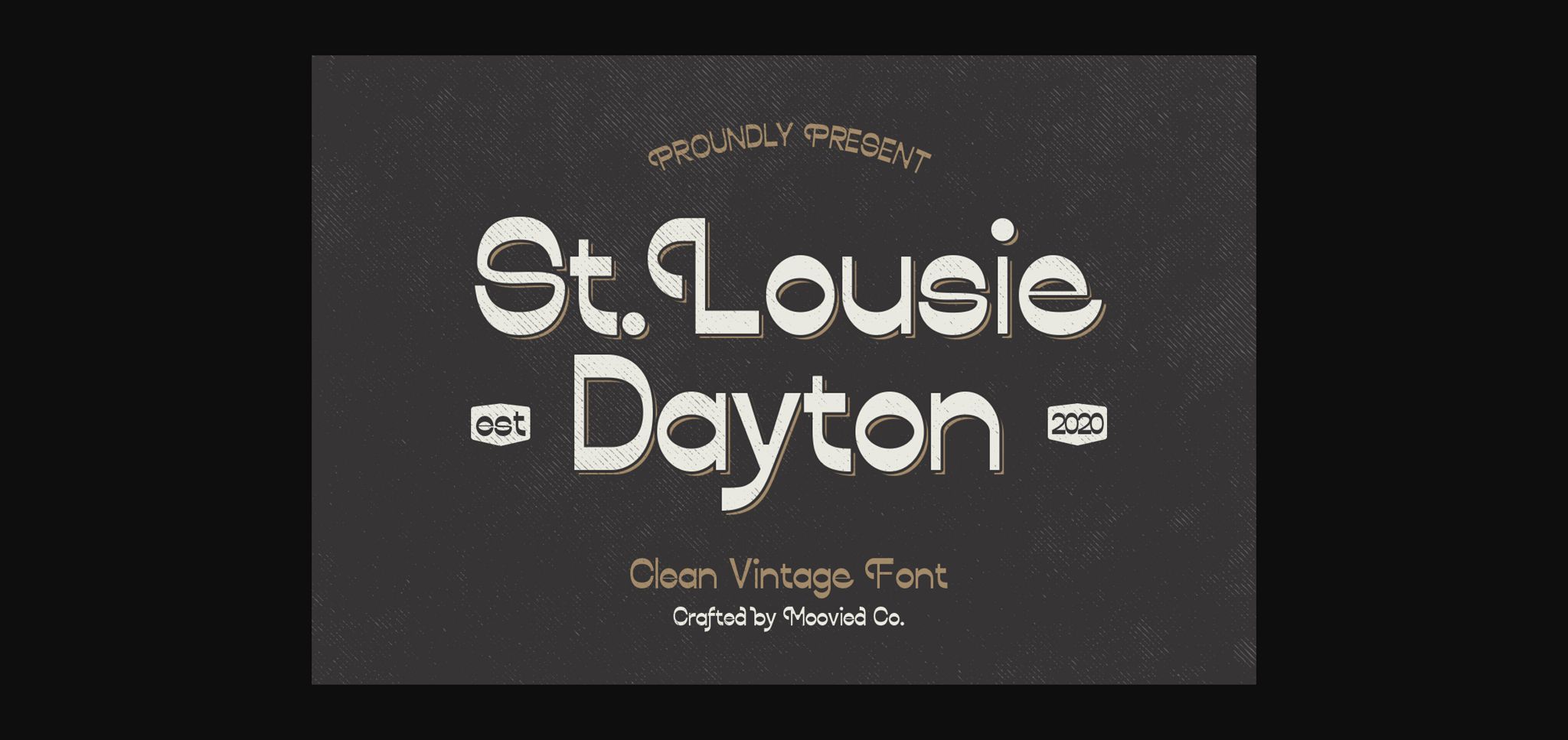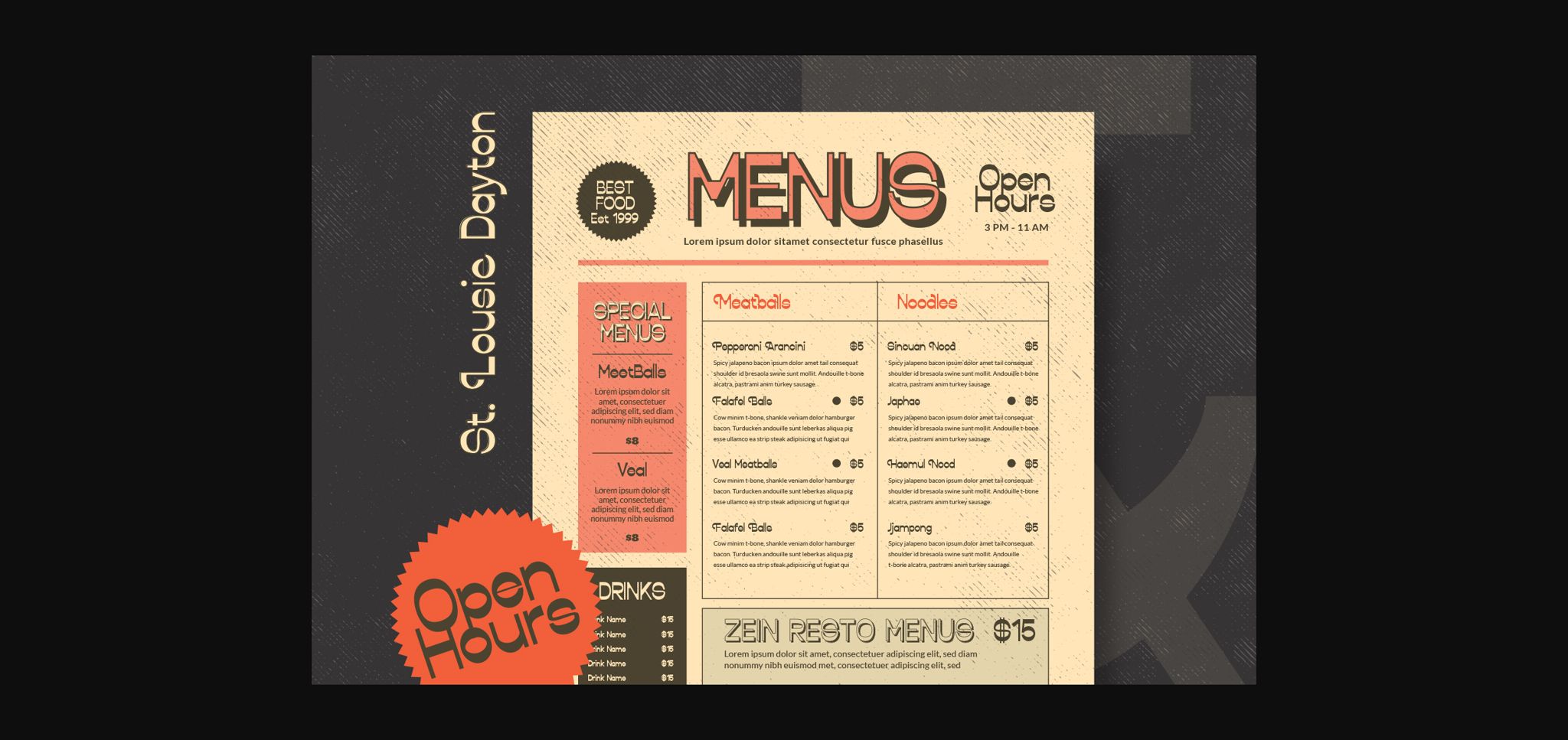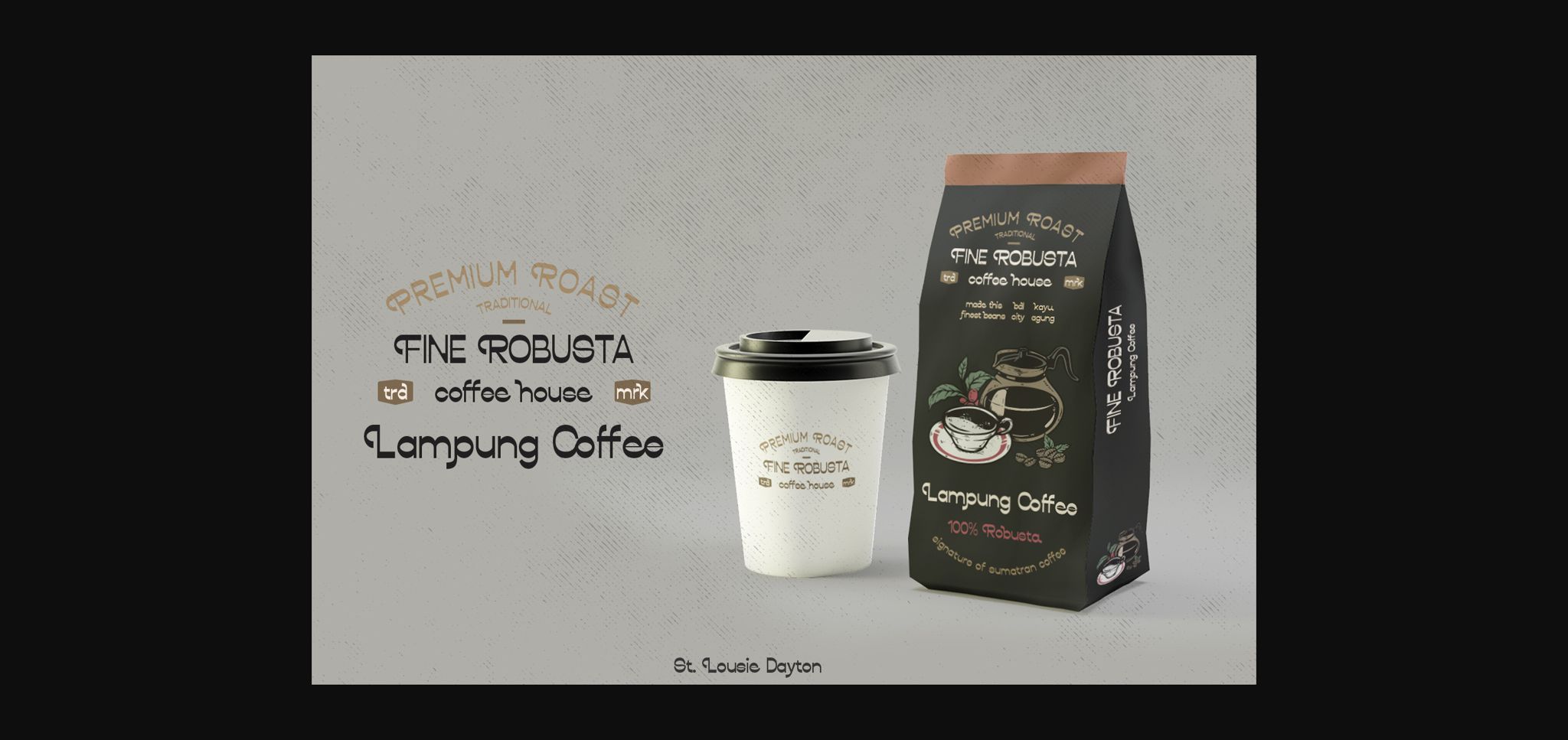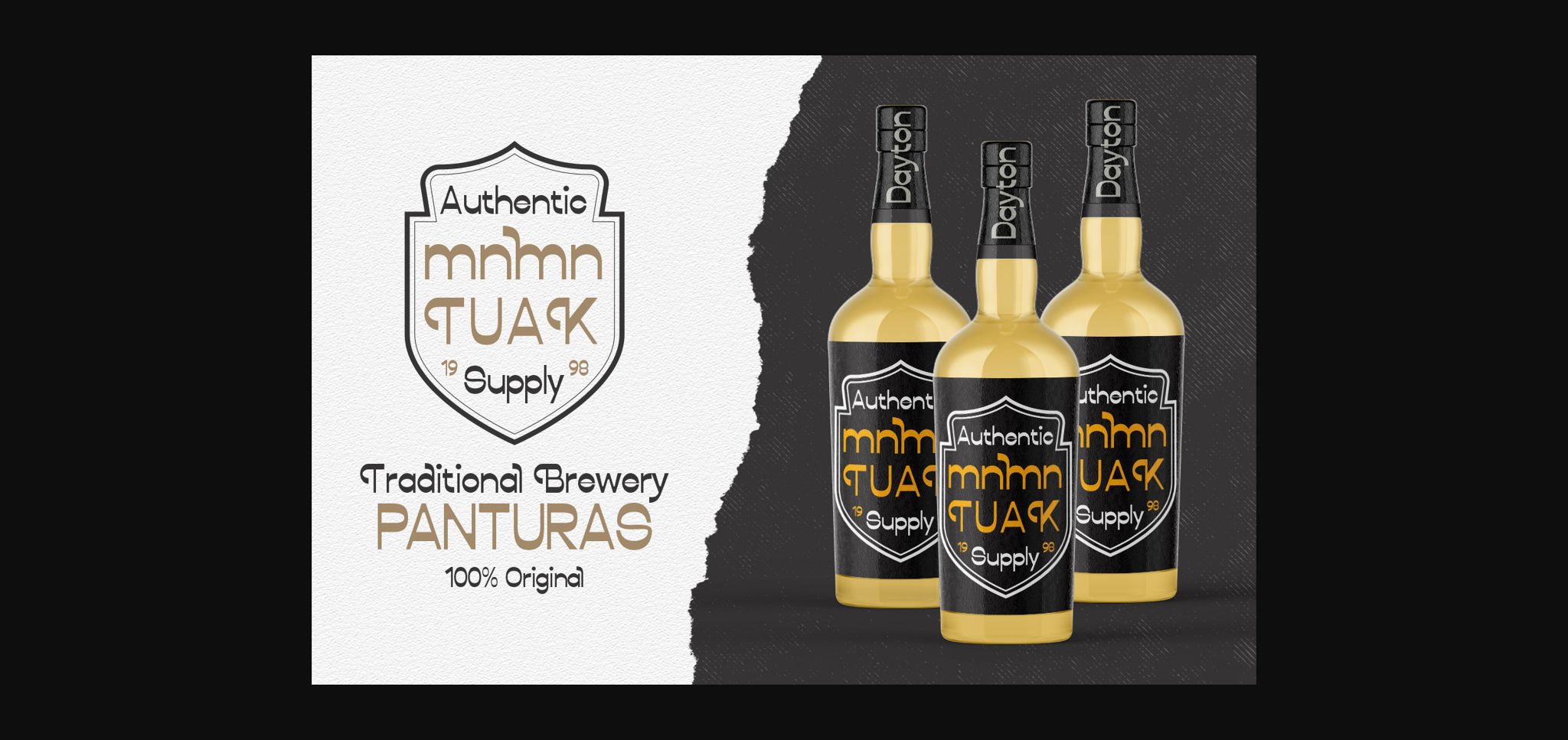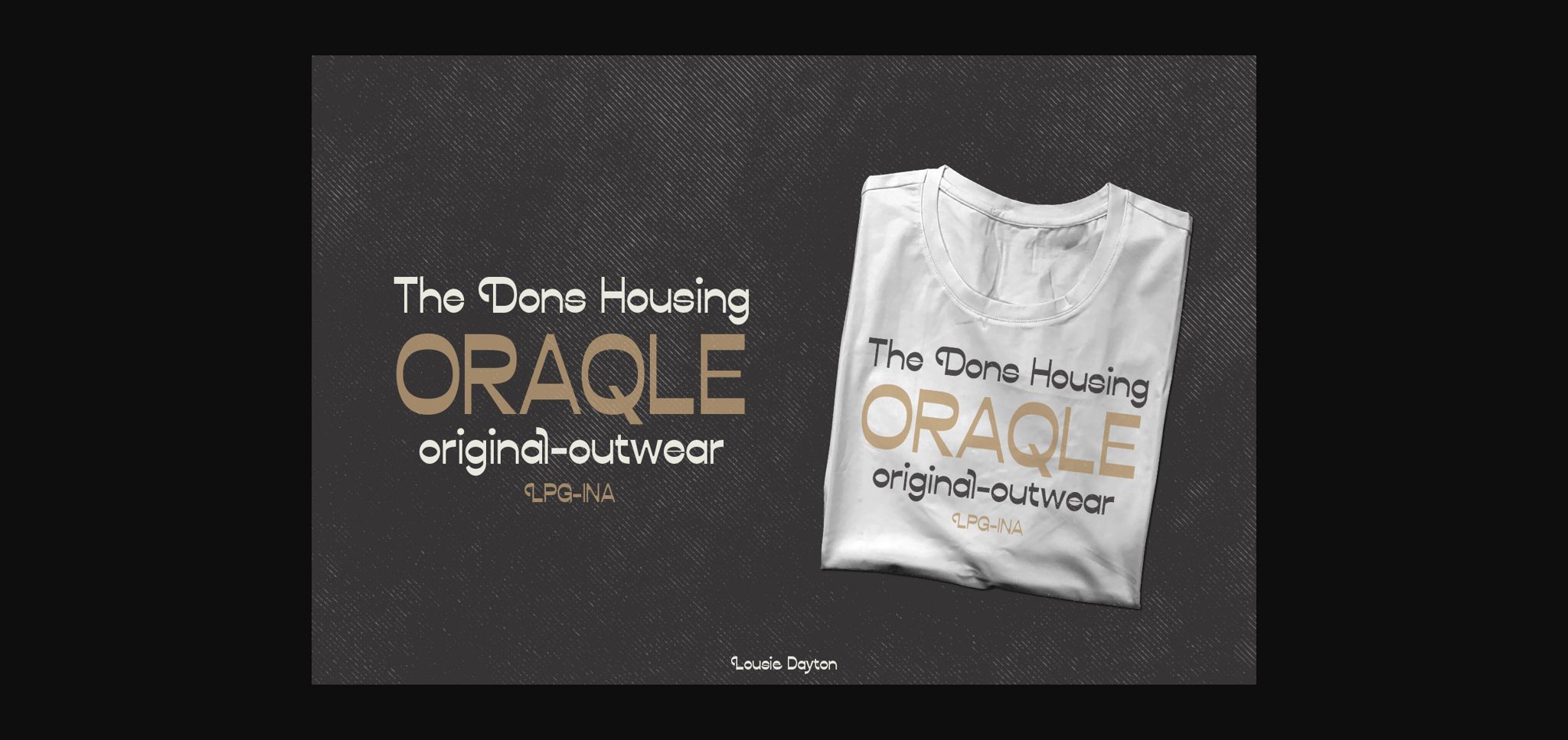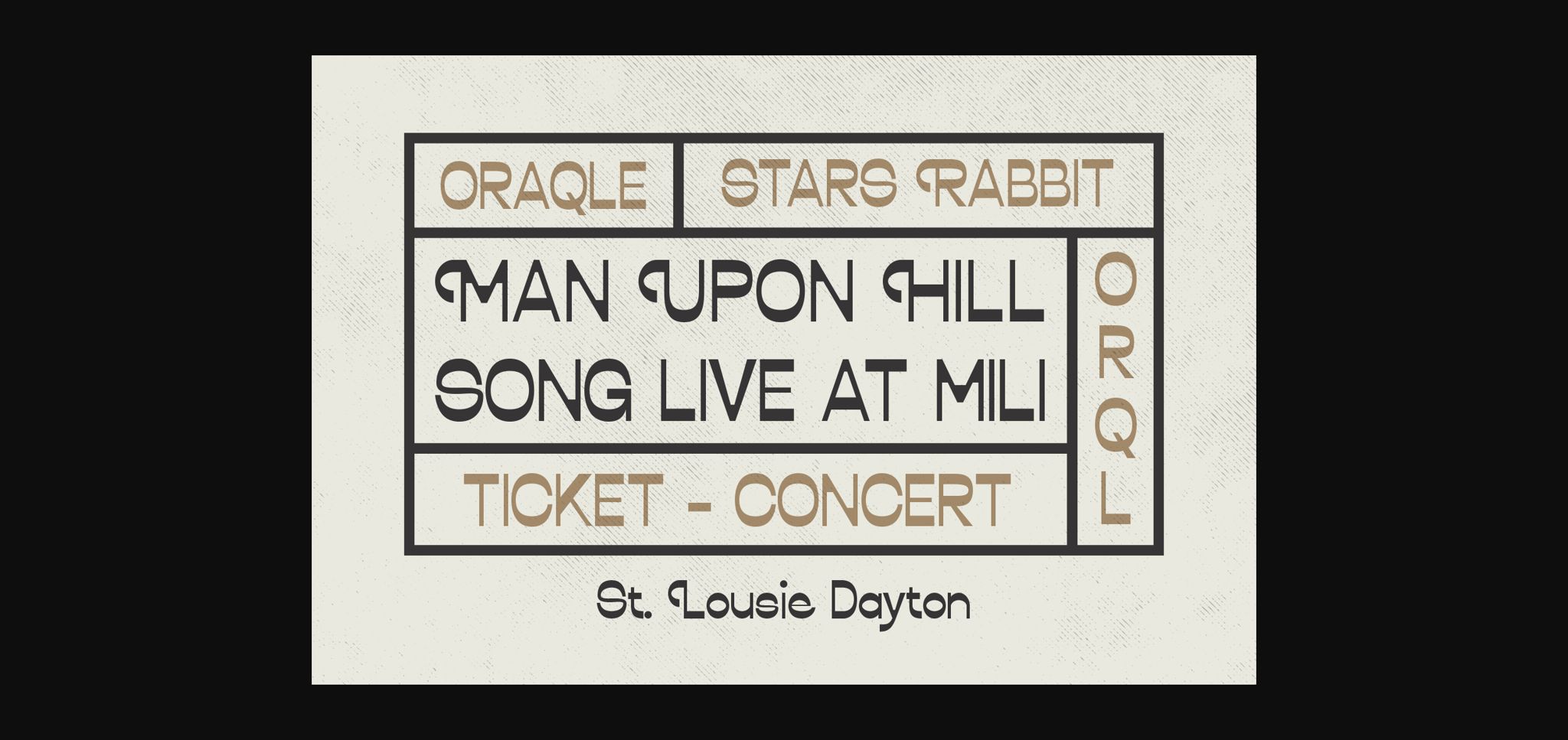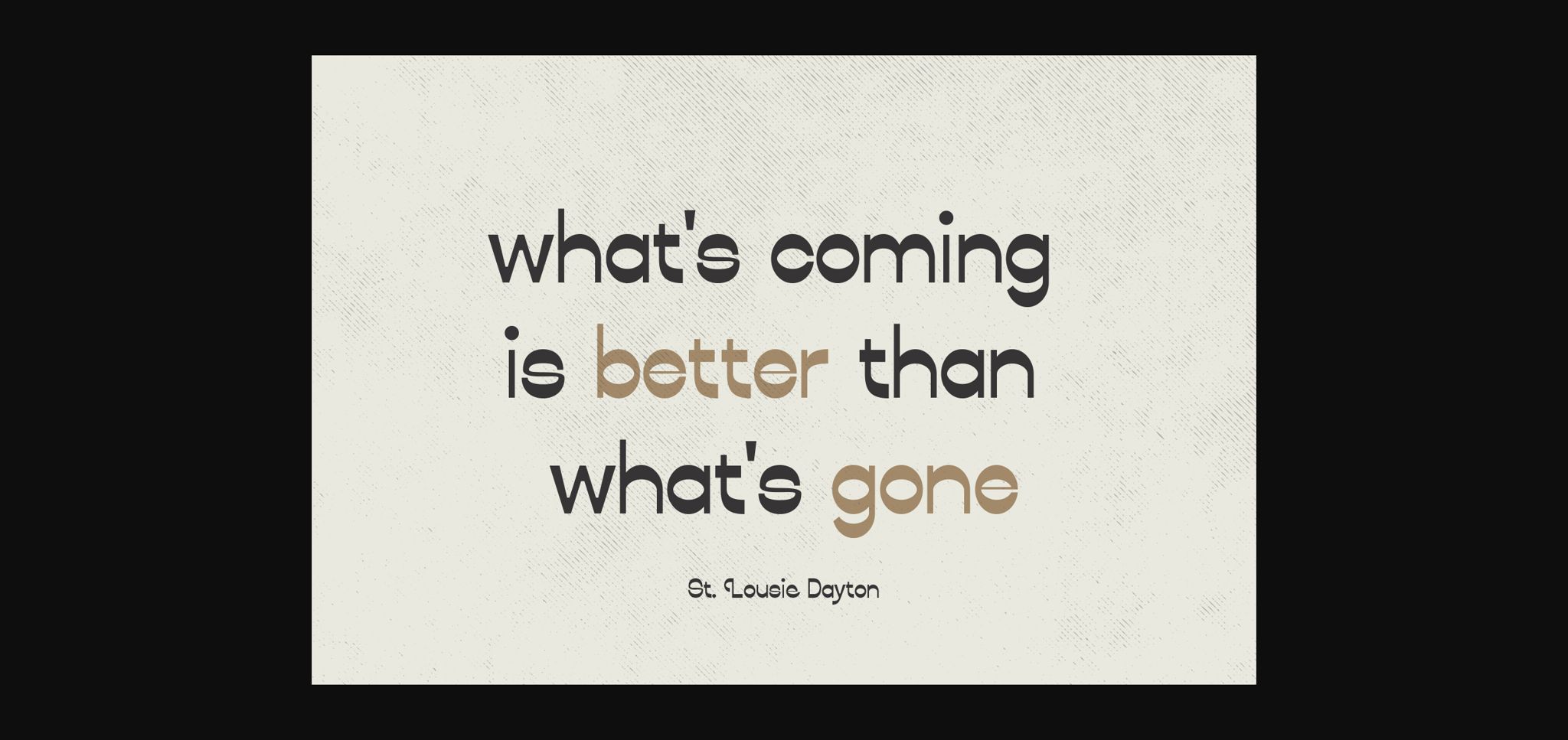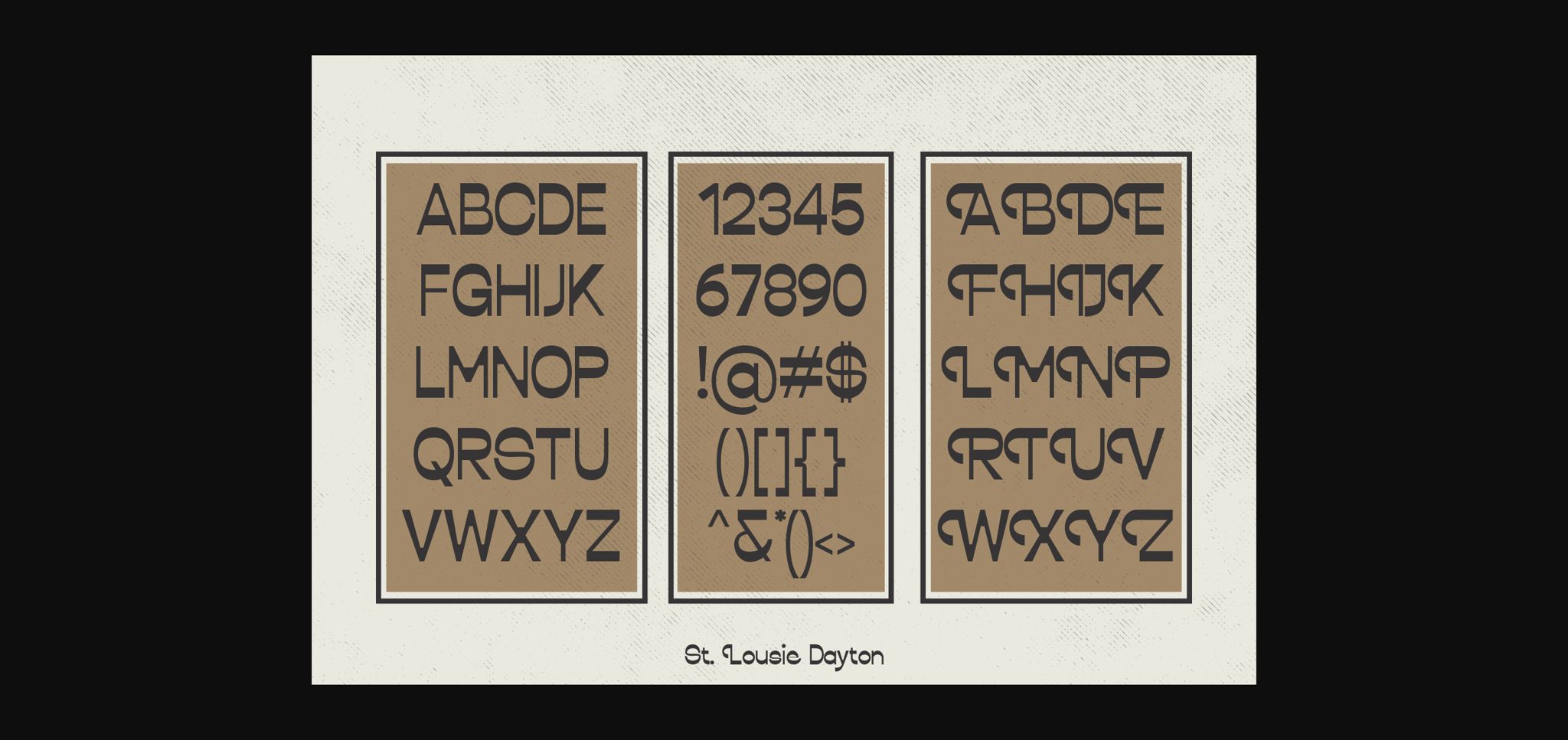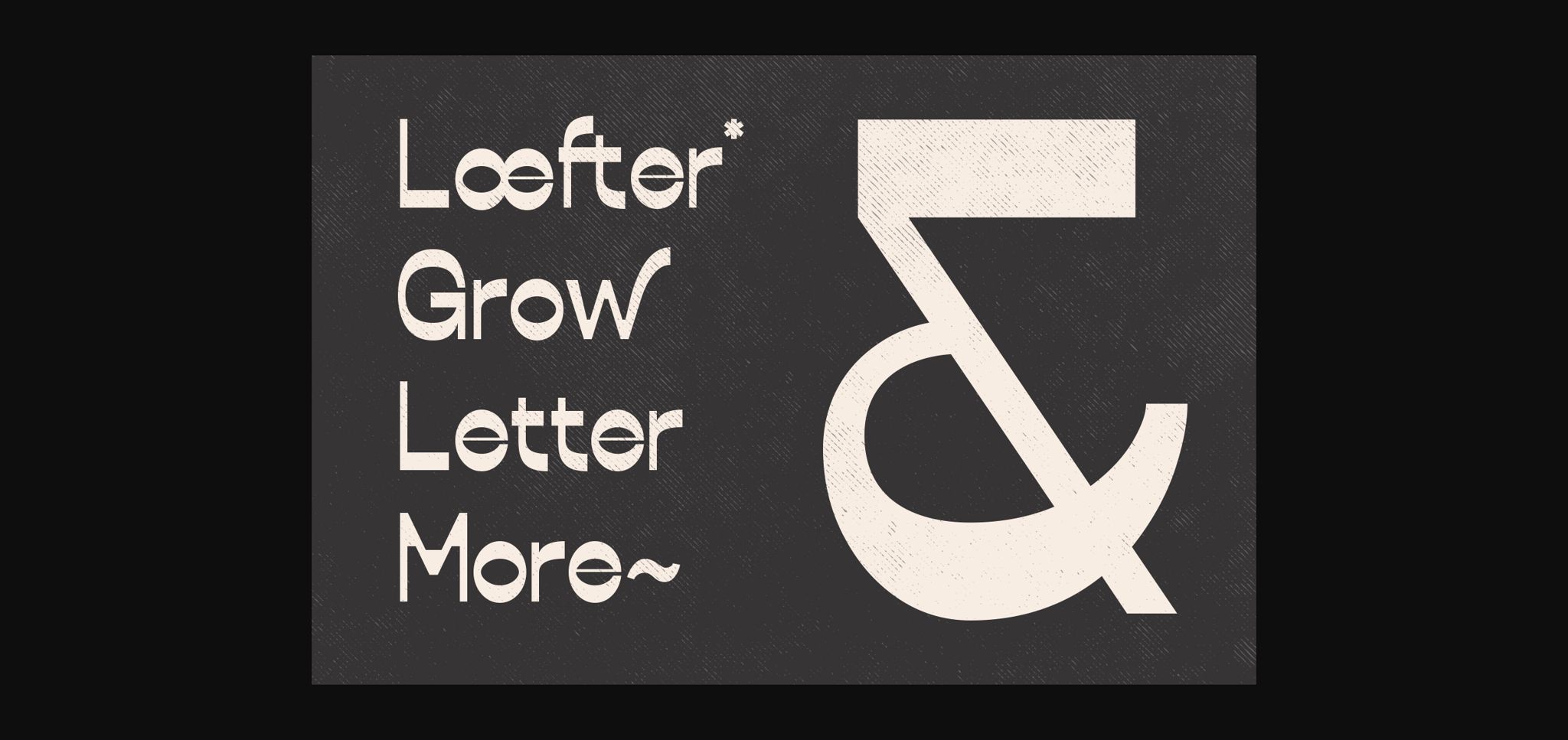
St. Louise Dayton Font
About St. Louise Dayton Font
St. Louise Dayton feels playfully nostalgic and delivers an incredible vintage aesthetic. Use this sans serif font to add that special retro touch to any design idea you can think of!